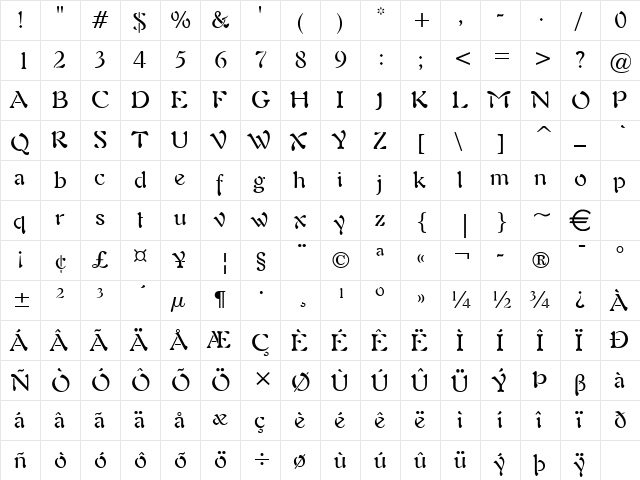
Freedom9 Normal
Design Context for Freedom9 Typeface
Freedom9 takes a measured approach to typography — its balanced proportions and neutral character make it a reliable workhorse for both digital and print work.